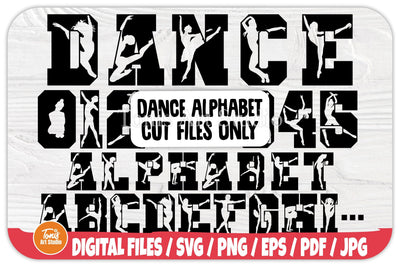
Dance Alphabet SVG | Monogram Letters Svg | Dance Font | Dancing Clipart | Dance Team Svg
Do you need a dance alphabet for your next project? Check out our latest release of dance alphabet svg! This vector file includes 36 different letters and numbers to help you create the perfect dance alphabet. You can use it to create custom clipart or icons for your dance team, or even create a personalized dance font! Our dancing clipart is perfect for creating choreography or illustrations for your dance projects. Our dance team svg is a great way to show off your amazing dancers. With this file, you'll have everything you need to create stunning dance T-shirt or graphics.